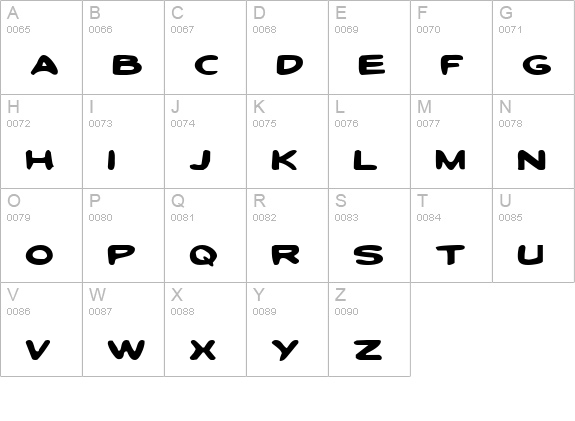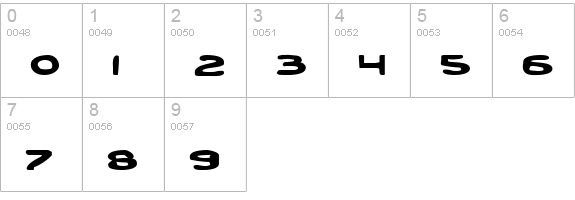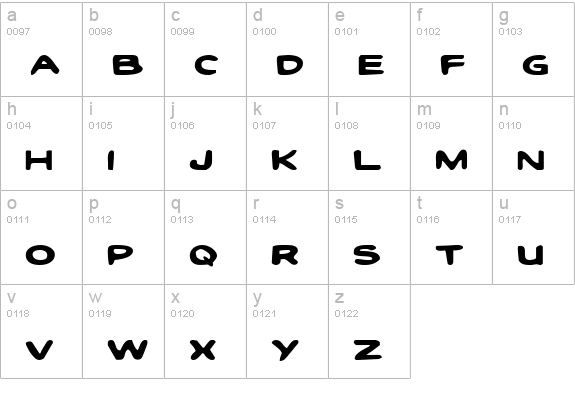
Toon Town Industrial Exp font is an eye-catching and versatile typeface that combines the playful charm of cartoon characters with the boldness of industrial aesthetics. This font is perfect for adding a touch of whimsy and personality to any design project. With its quirky and bold letterforms, Toon Town Industrial Exp font stands out in both digital and print mediums. Whether you're designing a logo, creating a poster, or crafting a unique website, this font will bring your creations to life with its distinctive style. One of the best things about Toon Town Industrial Exp font is that it is free! Yes, you heard that right. This amazing font is freely available to download at FontsMarket.com. You can easily access and download this font without any cost, making it an incredible resource for designers and creatives on a budget. The versatility of Toon Town Industrial Exp font is truly remarkable. It can be used for a wide range of design projects, from children's books and animations to edgy streetwear brands and modern digital art. Its unique combination of cartoonish playfulness and industrial edge gives it a captivating appeal that is sure to make a lasting impression. So, if you're looking to add a touch of whimsy and boldness to your next design project, look no further than Toon Town Industrial Exp font. With its freely available download at FontsMarket.com, you have the opportunity to explore the endless creative possibilities this font has to offer. Don't miss out on this fantastic resource – download Toon Town Industrial Exp font today and let your imagination run wild.